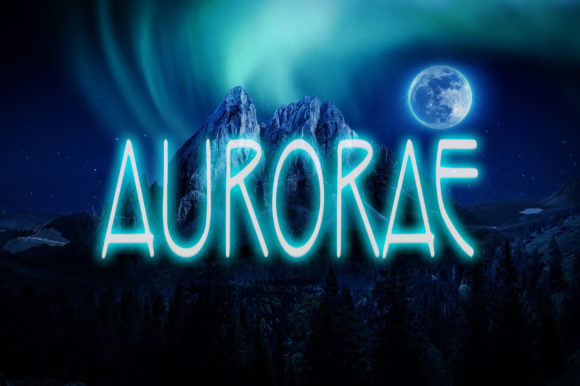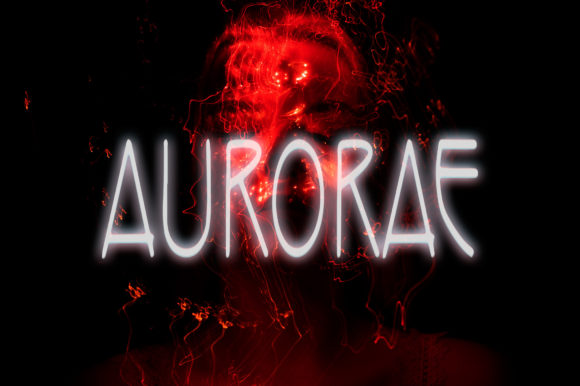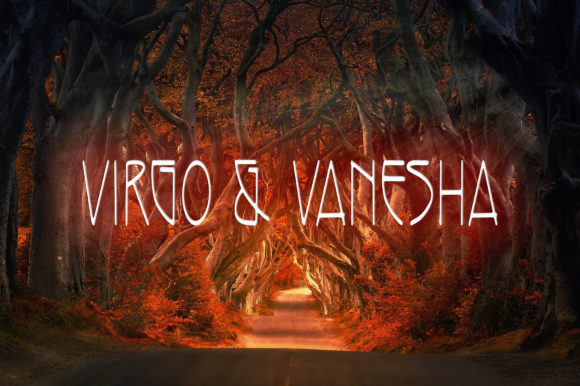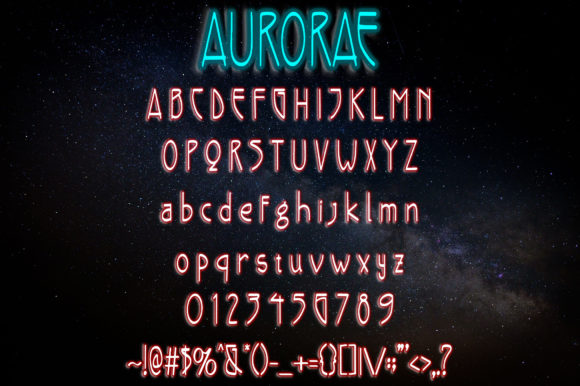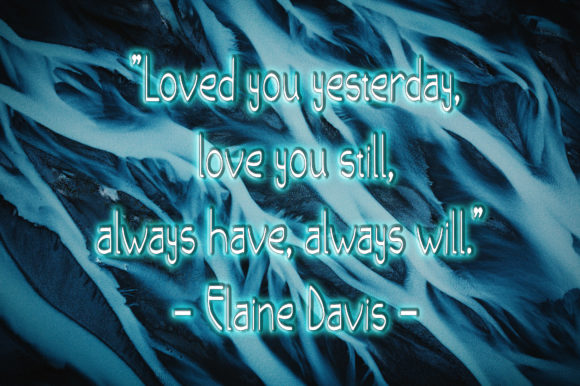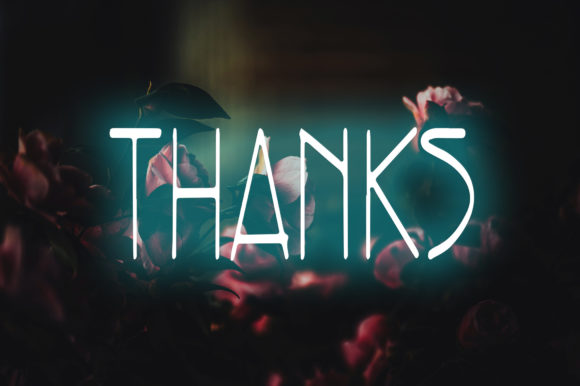
Aurorae Font: Elevate Your Designs with a Minimalist and Cool Sans Serif
In the world of typography, fonts play a crucial role in making or breaking a design. A well-chosen font can instantly elevate your project, making it stand out from the crowd. If you’re on the hunt for a font that exudes modernity, simplicity, and a touch of coolness, look no further than Aurorae Font. This minimalist sans serif font is incredibly versatile, making it an excellent addition to your creative toolkit.
What is Aurorae Font?
Aurorae Font is a sleek and contemporary sans serif font designed to bring a fresh perspective to your designs. Its clean lines, simple shapes, and uncluttered aesthetic make it an ideal choice for designers and crafters looking for a modern look. Whether you’re working on a branding project, a website, a print design, or any other creative endeavor, Aurorae Font is sure to make a lasting impression.
Key Features of Aurorae Font
- Minimalist Design: Aurorae Font boasts a minimalist design that is both elegant and understated. Its simplicity makes it easy to pair with a wide range of other fonts and design elements.
- Cool and Modern Aesthetic: The font’s clean and sleek lines give it a cool, modern aesthetic that is sure to appeal to designers looking for a contemporary look.
- Versatility: One of the standout features of Aurorae Font is its versatility. It can be used in an incredibly large set of projects, from digital designs to print materials.
- Ease of Use: Aurorae Font is incredibly easy to use, making it accessible to designers of all skill levels. Whether you’re a seasoned pro or just starting out, this font is a great choice.
How to Use Aurorae Font in Your Designs
So, how can you use Aurorae Font to elevate your designs? Here are a few ideas to get you started:
- Branding: Use Aurorae Font as a primary font for your brand’s logo, or as a supporting font to add a modern touch to your branding materials.
- Web Design: Aurorae Font is perfect for web design projects, including website headers, body text, and more.
- Print Design: From business cards to brochures, Aurorae Font can add a touch of modernity to your print designs.
- Social Media Graphics: Use Aurorae Font to create eye-catching social media graphics that are sure to stand out.
Tips for Pairing Aurorae Font with Other Design Elements
While Aurorae Font is stunning on its own, it can also be paired with other design elements to create a truly unique look. Here are a few tips for pairing Aurorae Font with other fonts and design elements:
- Pair with Script Fonts: For a touch of elegance, pair Aurorae Font with a script font. This combination works particularly well for branding and advertising projects.
- Combine with Bold Colors: Aurorae Font looks great when paired with bold, bright colors. Try using it with a bold color scheme to create a modern and eye-catching design.
- Use with Simple Imagery: Aurorae Font works best with simple, uncluttered imagery. Try pairing it with a simple background or a bold graphic to create a striking design.
In conclusion, Aurorae Font is a versatile and stylish sans serif font that is perfect for designers and crafters looking for a modern and cool aesthetic. Its minimalist design, ease of use, and versatility make it an excellent addition to any creative project. Whether you’re working on a branding project, a website, or a print design, Aurorae Font is sure to make your designs stand out. So why wait? Add Aurorae Font to your creative toolkit today and see how it can elevate your designs!